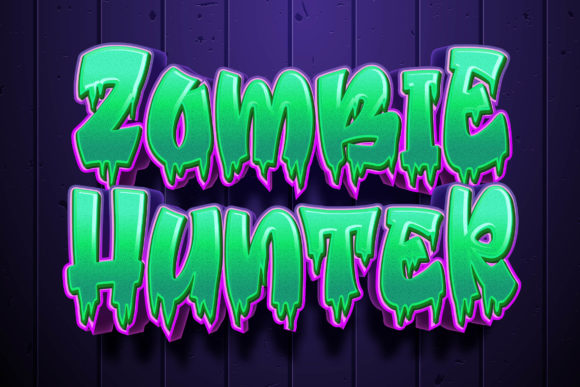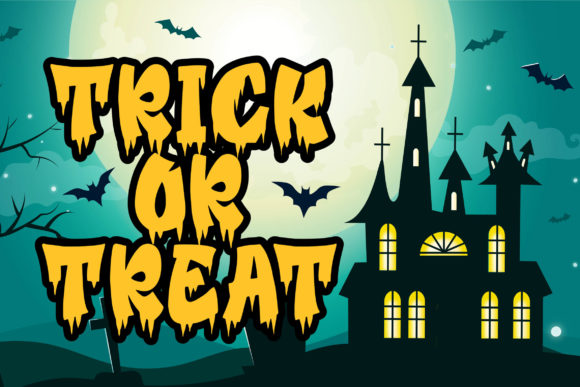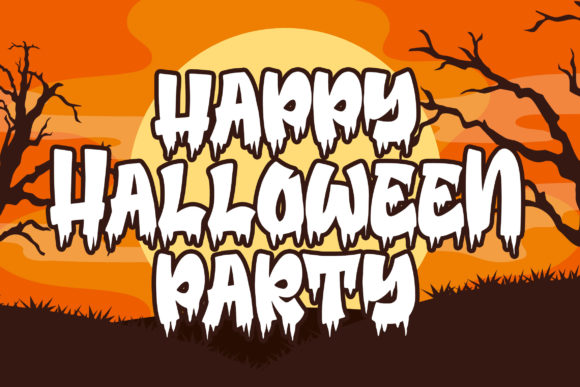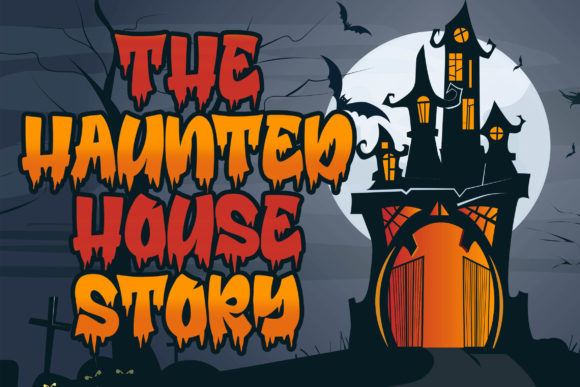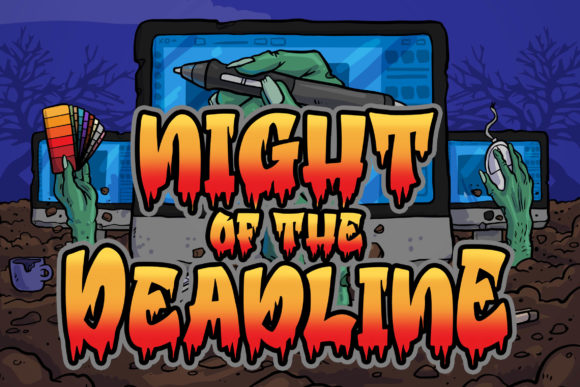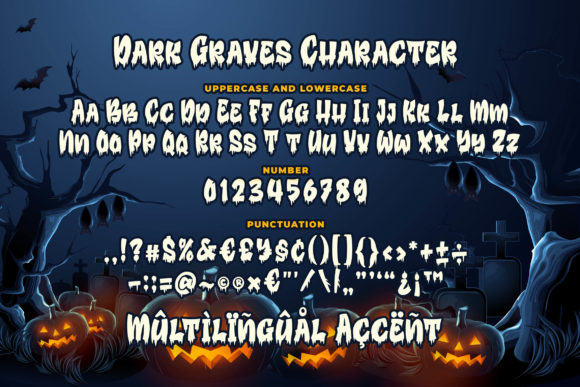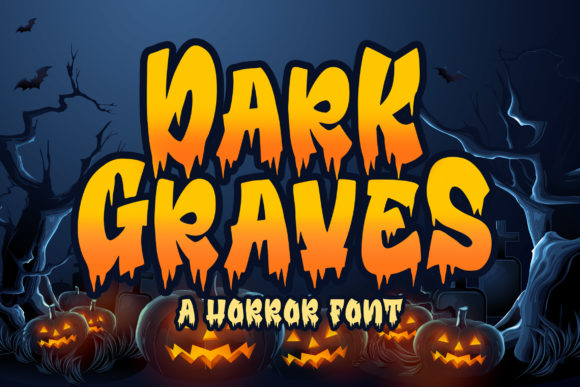
Unleash the Spookiness: Exploring the Dark Graves Font
Are you a designer or crafter looking for the perfect font to add a touch of eeriness to your projects? Look no further than the Dark Graves Font. This amazing display font has an authentic feel that’s sure to send chills down the spine. In this article, we’ll dive into the world of Dark Graves and explore its features, uses, and benefits.
What is Dark Graves Font?
Dark Graves Font is a unique and captivating typeface designed to evoke a sense of mystery and horror. Its authentic feel makes it perfect for creating spooky and eerie designs that are sure to leave a lasting impression. Whether you’re working on a Halloween card, horror movie poster, or any other project that requires a touch of darkness, Dark Graves is the ideal choice.
Features of Dark Graves Font
So, what makes Dark Graves Font so special? Here are some of its key features:
- Authentic feel: Dark Graves has a genuine, distressed look that’s reminiscent of old tombstones and creepy abandoned places.
- Display font: This font is designed to make a statement, making it perfect for headlines, titles, and other display text.
- Versatile: Dark Graves can be used for a wide range of projects, from Halloween cards and horror movie posters to t-shirts, stickers, and more.
Uses of Dark Graves Font
Dark Graves Font is incredibly versatile, and its uses are endless. Here are some ideas to get you started:
- Halloween cards and invitations: Create spooky and inviting Halloween cards and invitations that will set the tone for a howling good time.
- Horror movie posters: Add a touch of eeriness to your horror movie posters and make them stand out from the crowd.
- T-shirts and apparel: Design creepy and eye-catching t-shirts, hoodies, and other apparel that will appeal to horror fans.
- Stickers and decals: Create spooky stickers and decals that can be used to decorate laptops, water bottles, and more.
- Graphic design projects: Use Dark Graves to add a touch of darkness to your graphic design projects, such as brochures, flyers, and posters.
- Unique and eye-catching: Dark Graves is a one-of-a-kind font that’s sure to grab attention and leave a lasting impression.
- Versatile: Dark Graves can be used for a wide range of projects, making it a great addition to any design library.
Tips for Using Dark Graves Font
Here are some tips for getting the most out of Dark Graves Font:
- Experiment with different colors: Dark Graves looks great in a range of colors, from bold and bright to muted and eerie.
- Play with textures and effects: Add depth and interest to your designs by experimenting with different textures and effects.
- Use it sparingly: Dark Graves is a bold font, so use it sparingly to avoid overwhelming your design.
- Pair it with other fonts: Try pairing Dark Graves with other fonts to create a unique and eye-catching design.
Dark Graves Font is an amazing display font that’s perfect for designers and crafters looking to add a touch of spookiness to their projects. With its authentic feel, versatility, and ease of use, it’s a great addition to any design library. Whether you’re working on a Halloween card, horror movie poster, or any other project that requires a touch of darkness, Dark Graves is the ideal choice. So why wait? Download Dark Graves Font today and unleash the spookiness!